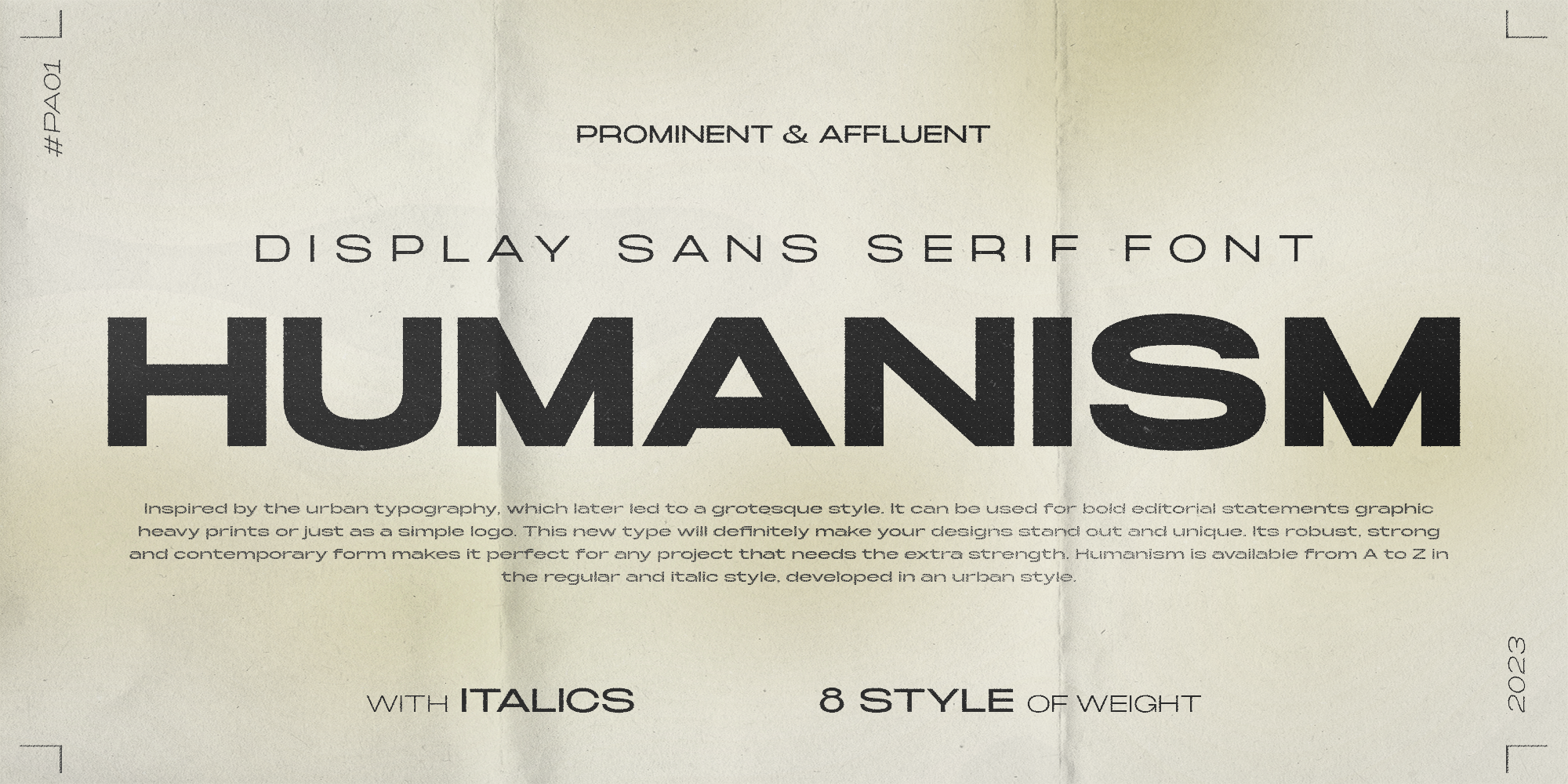
The Humanism Font excels in various design applications including humanitarian organization branding, educational institution communications, social impact campaigns, cultural foundation materials, non-profit organization design, progressive magazine layouts, philosophical publications, community outreach programs, sustainable brand identities, and thoughtful editorial projects that require compassionate and approachable visual communication.
What makes the Humanism Font exciting is its embodiment of human-centered design principles through warm, approachable letterforms that prioritize readability and emotional connection over pure aesthetics. This typeface reflects the core values of humanistic philosophy by creating typography that feels accessible, inclusive, and genuinely caring. The font's organic character and thoughtful proportions make it ideal for organizations and brands seeking to establish authentic connections with their audiences through typography that demonstrates empathy and social consciousness.
The Humanism Font family typically includes multiple weight variations from light to bold, featuring complementary italic styles and extended character sets that support diverse languages and cultural contexts. These family options often include specialized features like enhanced readability optimizations, accessibility-focused spacing, and inclusive design elements that ensure optimal performance for diverse audiences and reading conditions.
Social sector professionals and values-driven organizations consistently choose Humanism Font Free Download for projects requiring authentic, compassionate visual communication that builds trust and demonstrates genuine care for human welfare. This typeface delivers exceptional performance in educational materials, community communications, and social impact campaigns where establishing emotional connections and conveying sincerity are paramount. The font's inclusive design philosophy makes it equally effective for global audiences and local communities. Download Humanism Font Free Download today to access this meaningful typeface that transforms communications into genuine human connections, elevating your mission-driven projects with typography that truly embodies the spirit of human dignity and compassion.